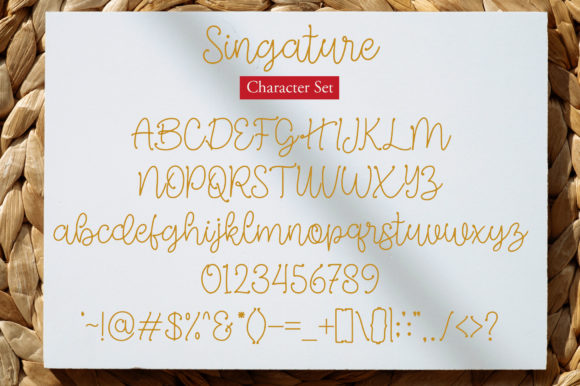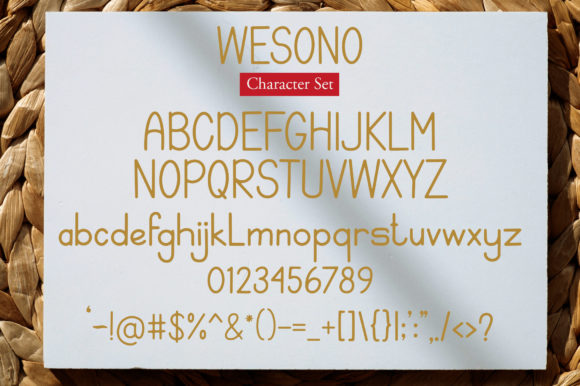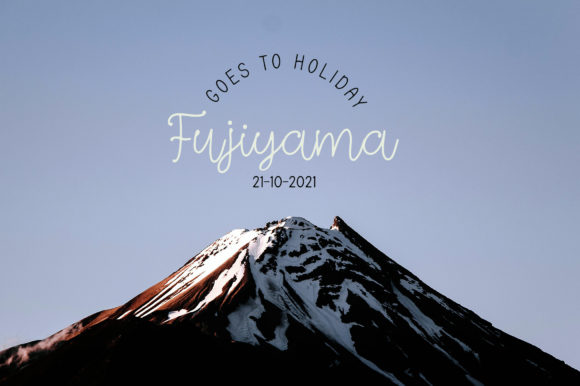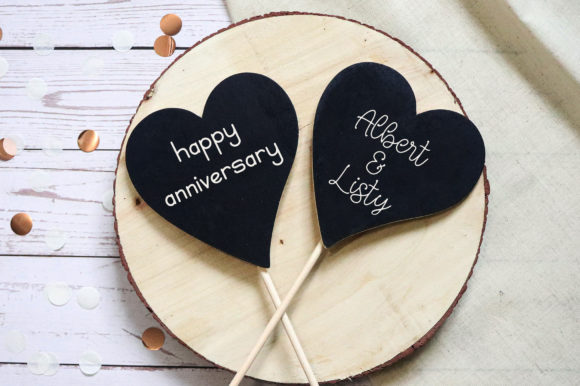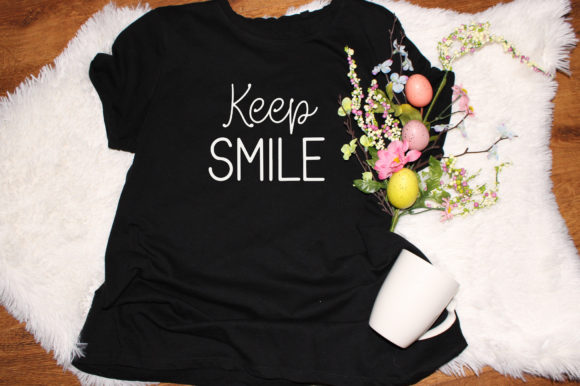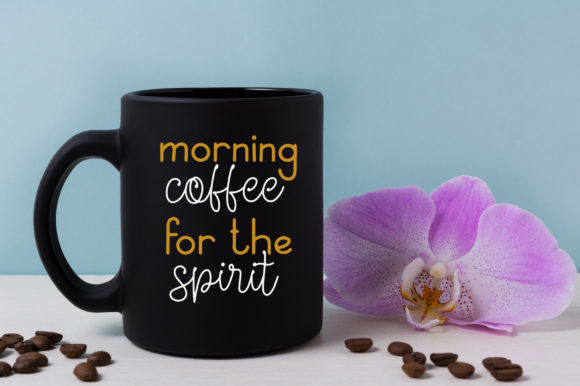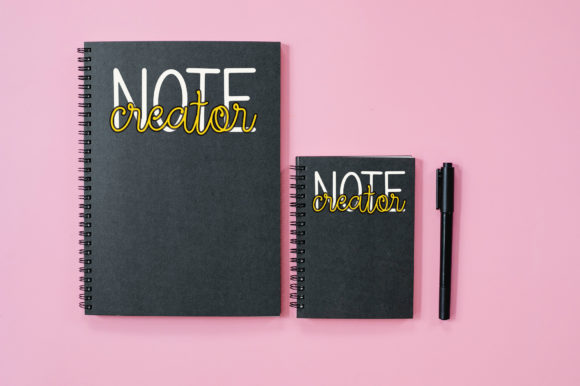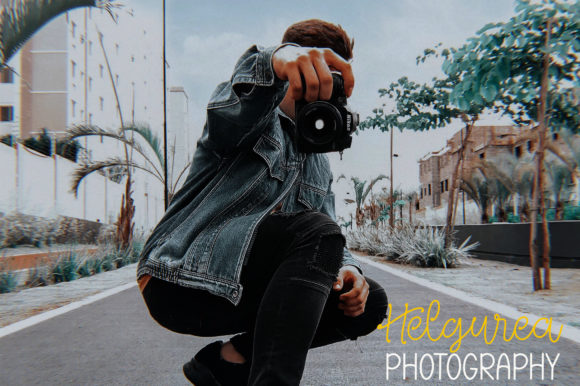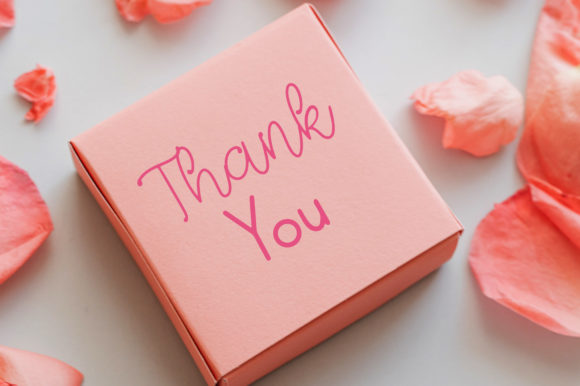
Wesono Singature Font
About Wesono Singature Font
Wesono Singature is a unique duo-styled handwritten font. Its flexibility and neat style will brighten up each of your designs. Have fun with this cool font and explore its endless variations.